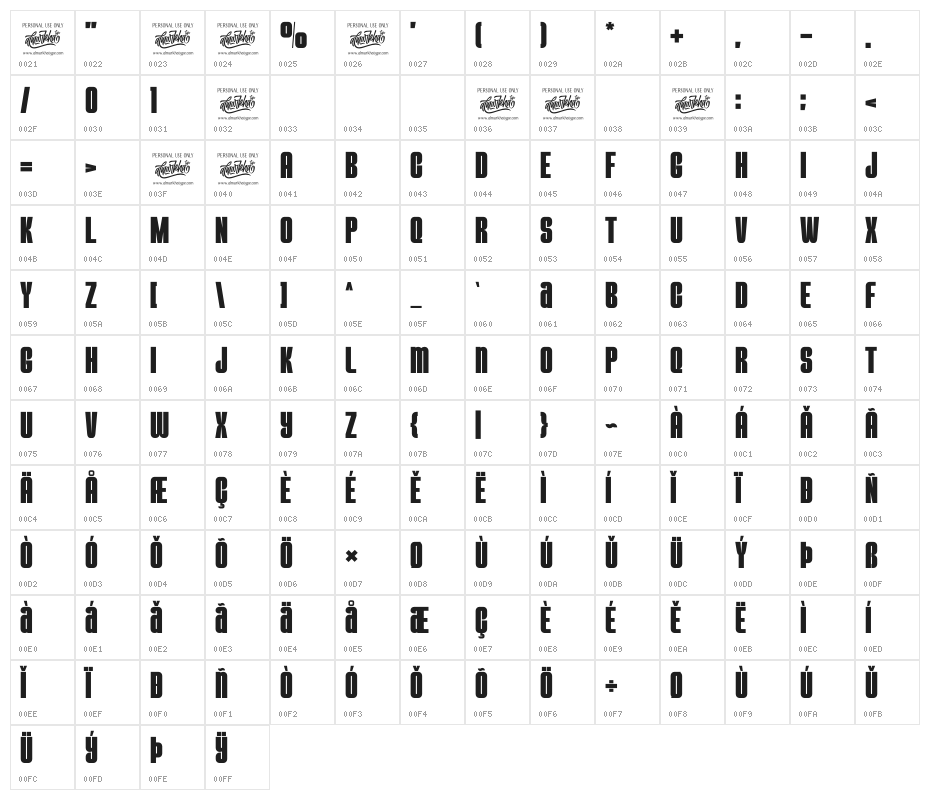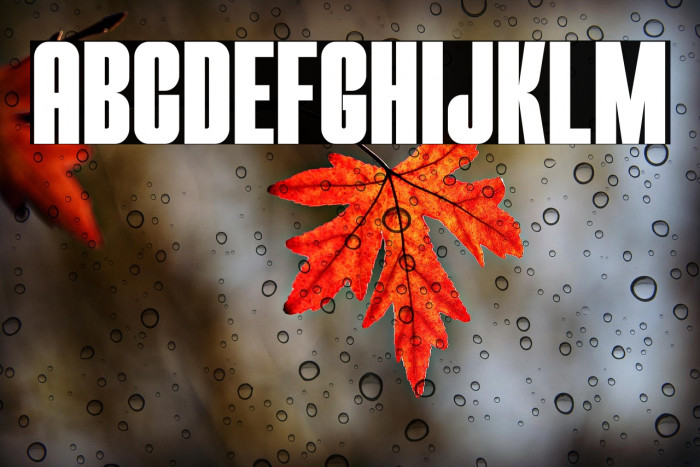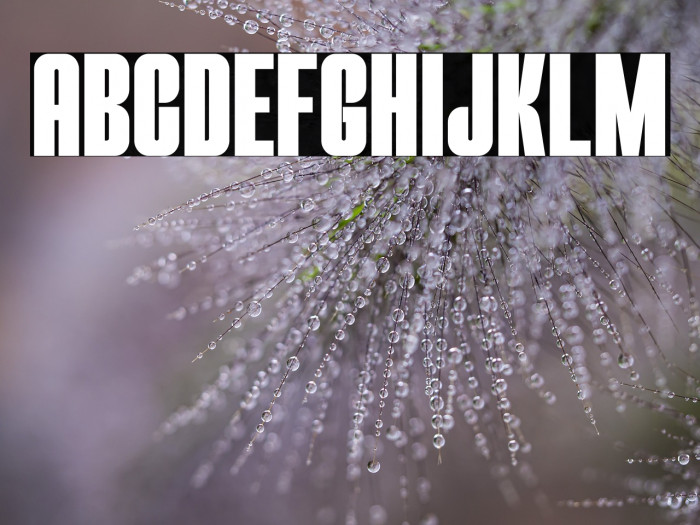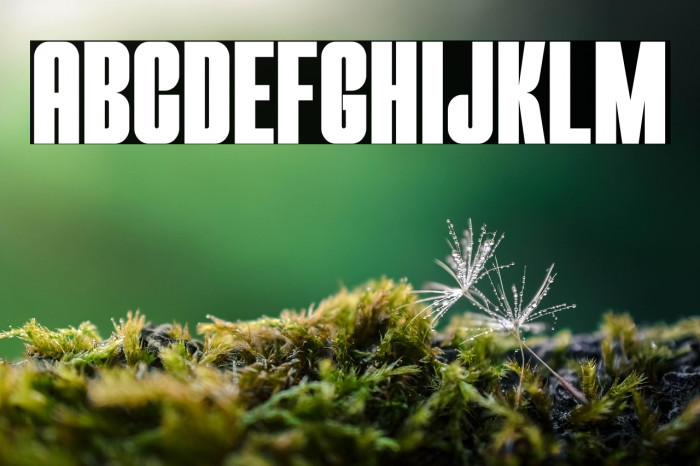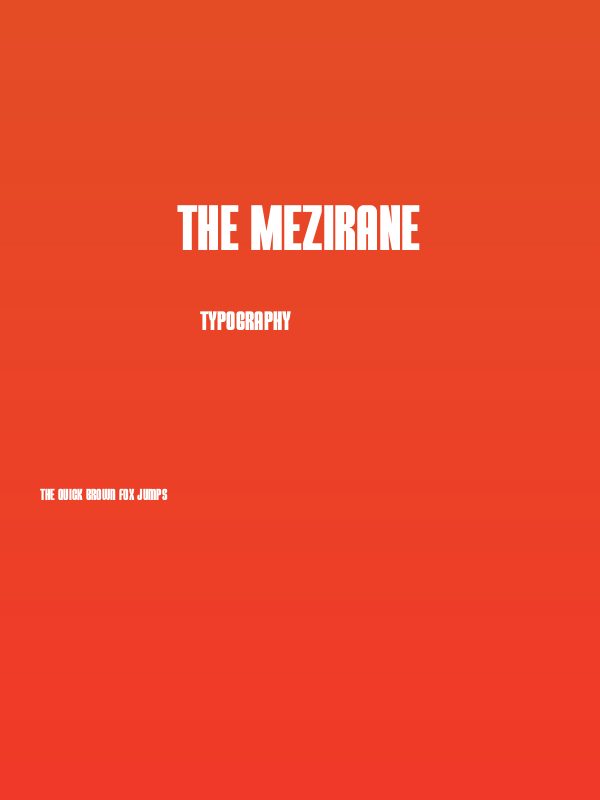
THE MEZIRANE Font
THE MEZIRANE Description
This font features a bold, impactful design with thick, uniform strokes that create a strong visual presence. The characters are tall and condensed, giving them a powerful and commanding appearance. The uppercase and lowercase letters maintain a consistent style, with minimal variation in stroke width, contributing to a cohesive and unified look. The numerals and special characters are designed to match the boldness of the alphabet, ensuring a seamless integration across different text elements. This font is ideal for making a statement and capturing attention with its robust and assertive style.
| Proposed Projects | Ideal for headlines, posters, branding, and any project requiring a bold, attention-grabbing typeface. |